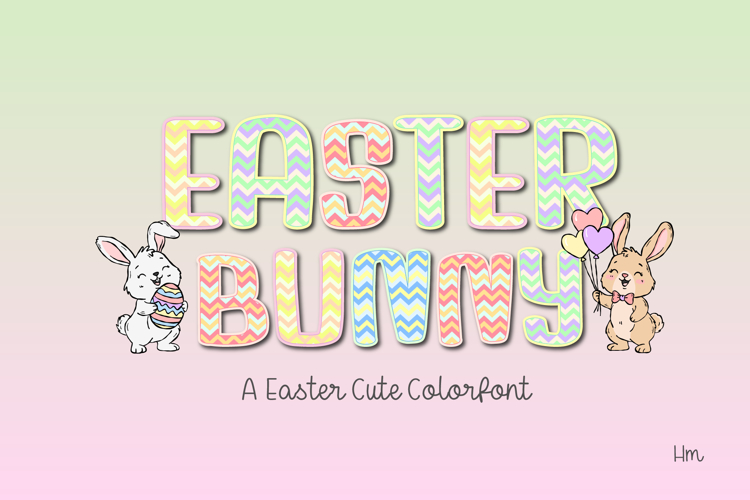
Bring sweet pastel charm to your spring creations with this adorable Easter Bunny Color Font Set! 🌸🐰
This playful alphabet features soft pastel chevron patterns inspired by Easter eggs, paired with cute bunny illustrations — perfect for Easter shirts, baby outfits, kids crafts, sublimation, print-on-demand, and seasonal decor.